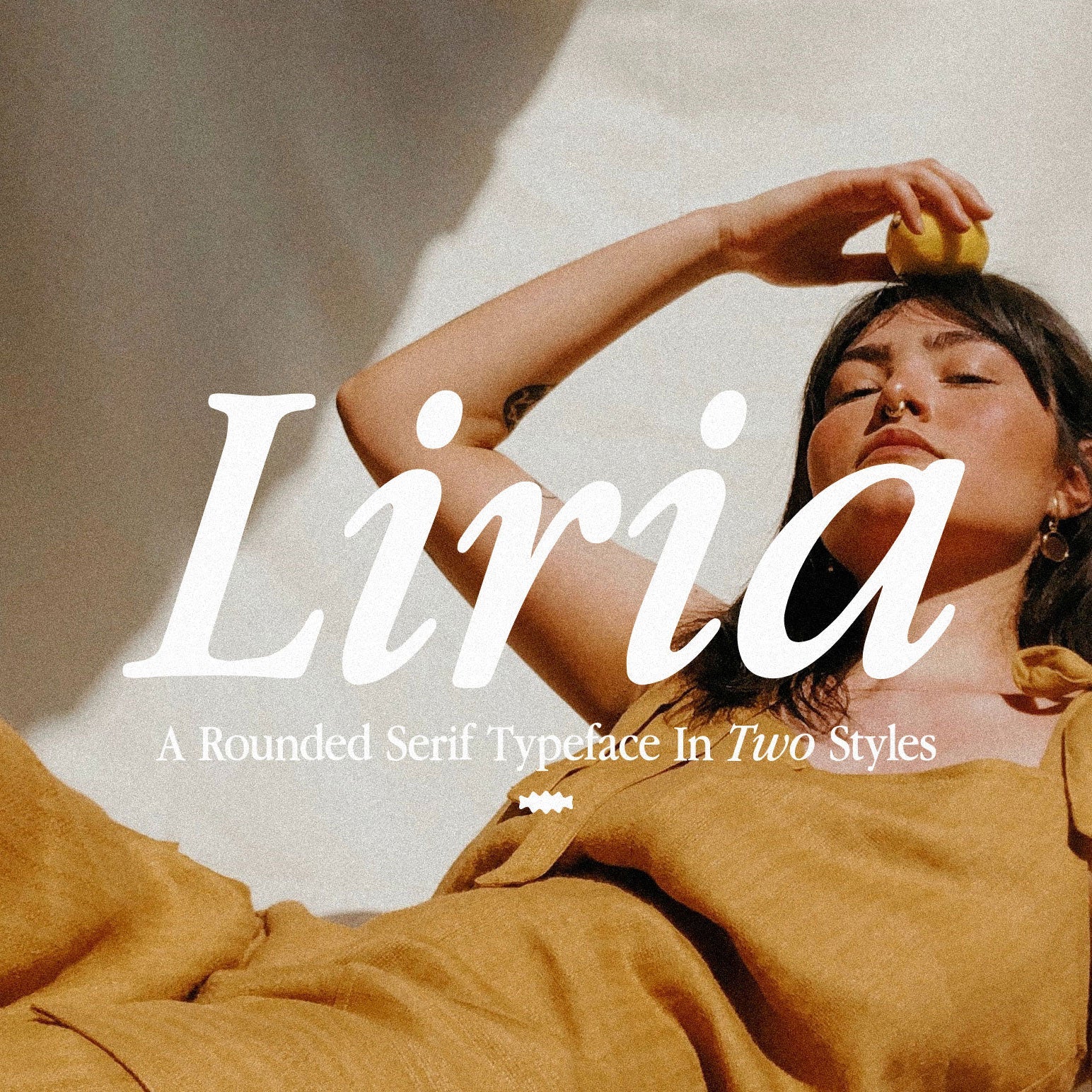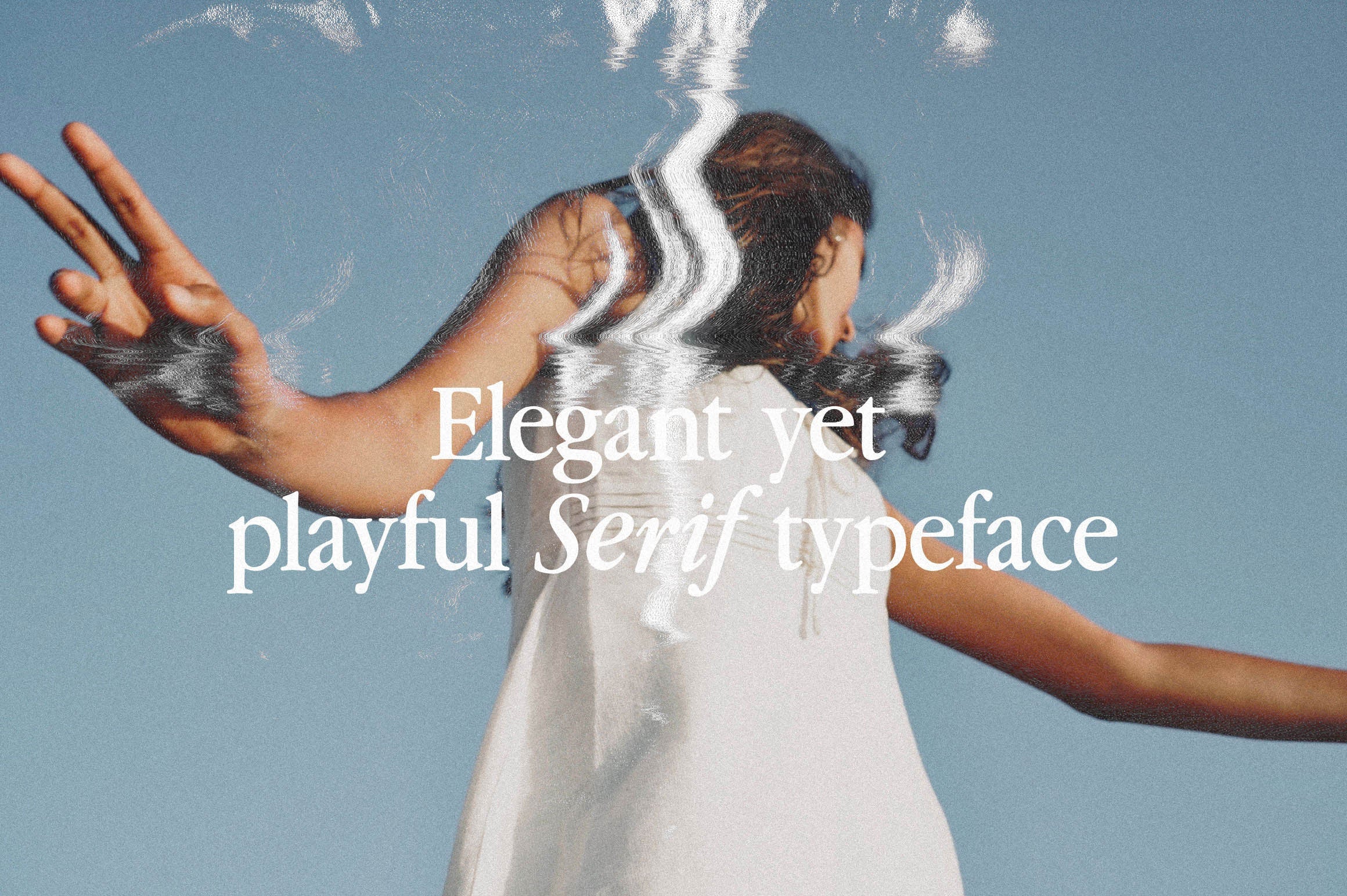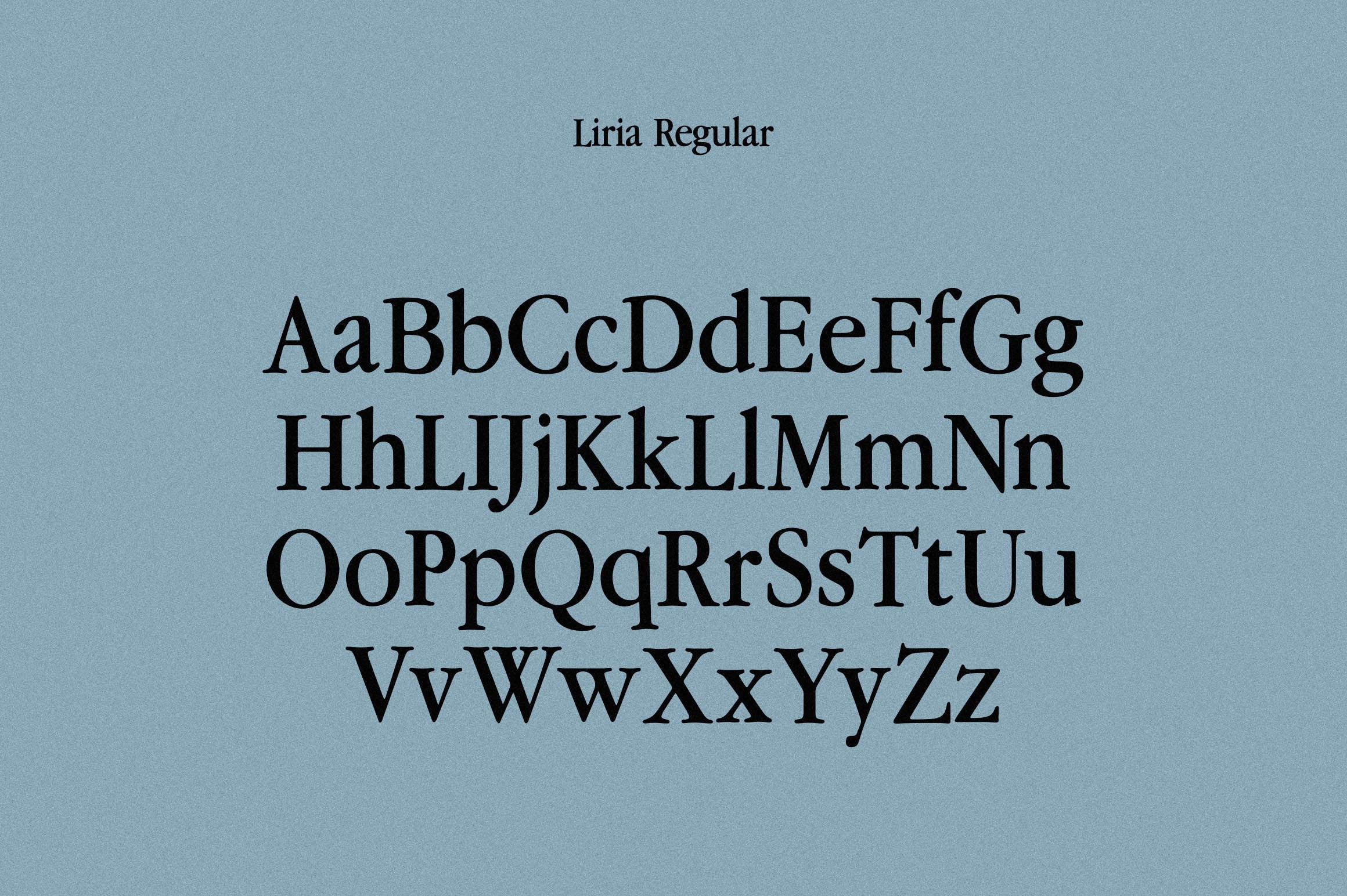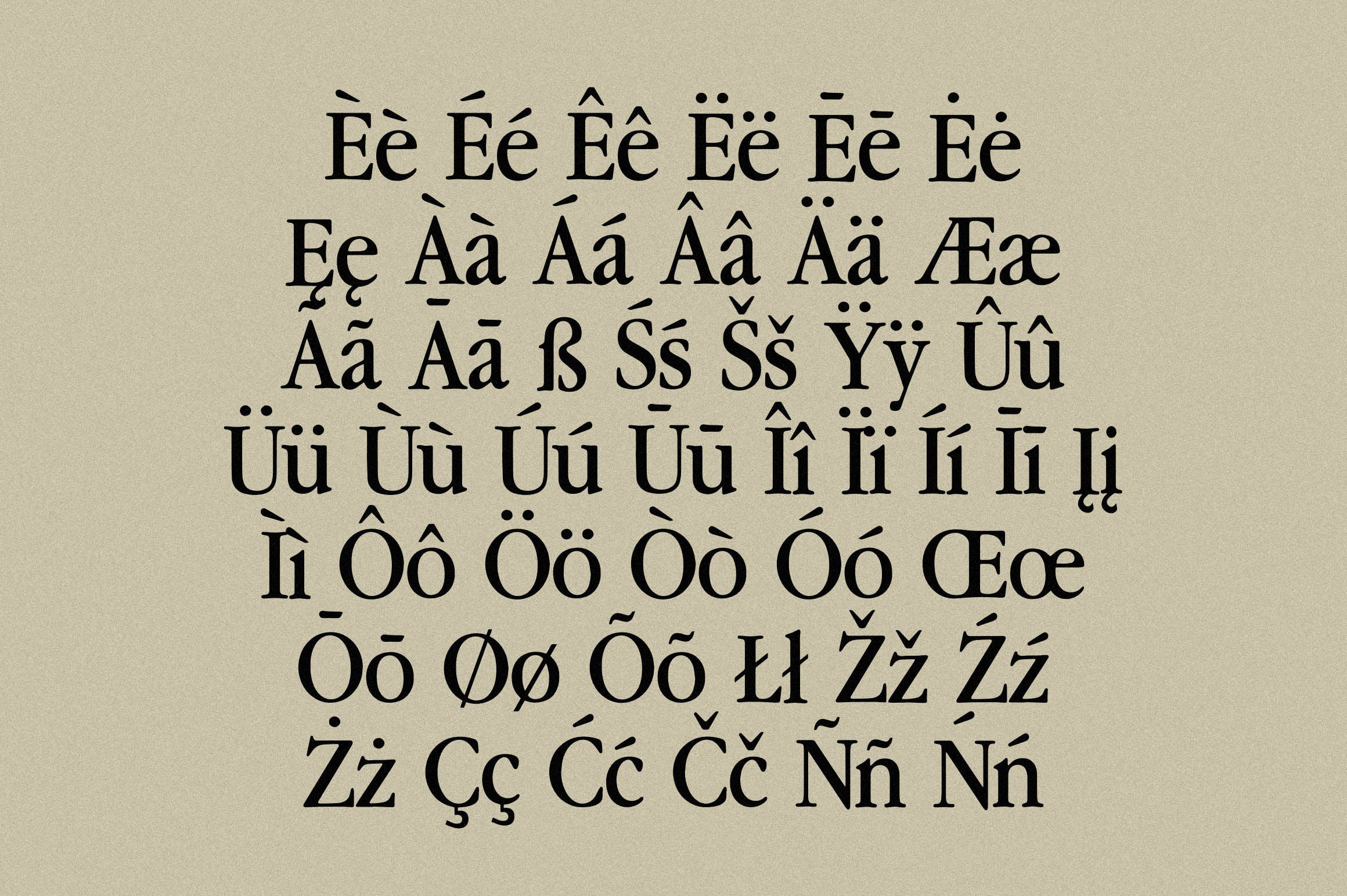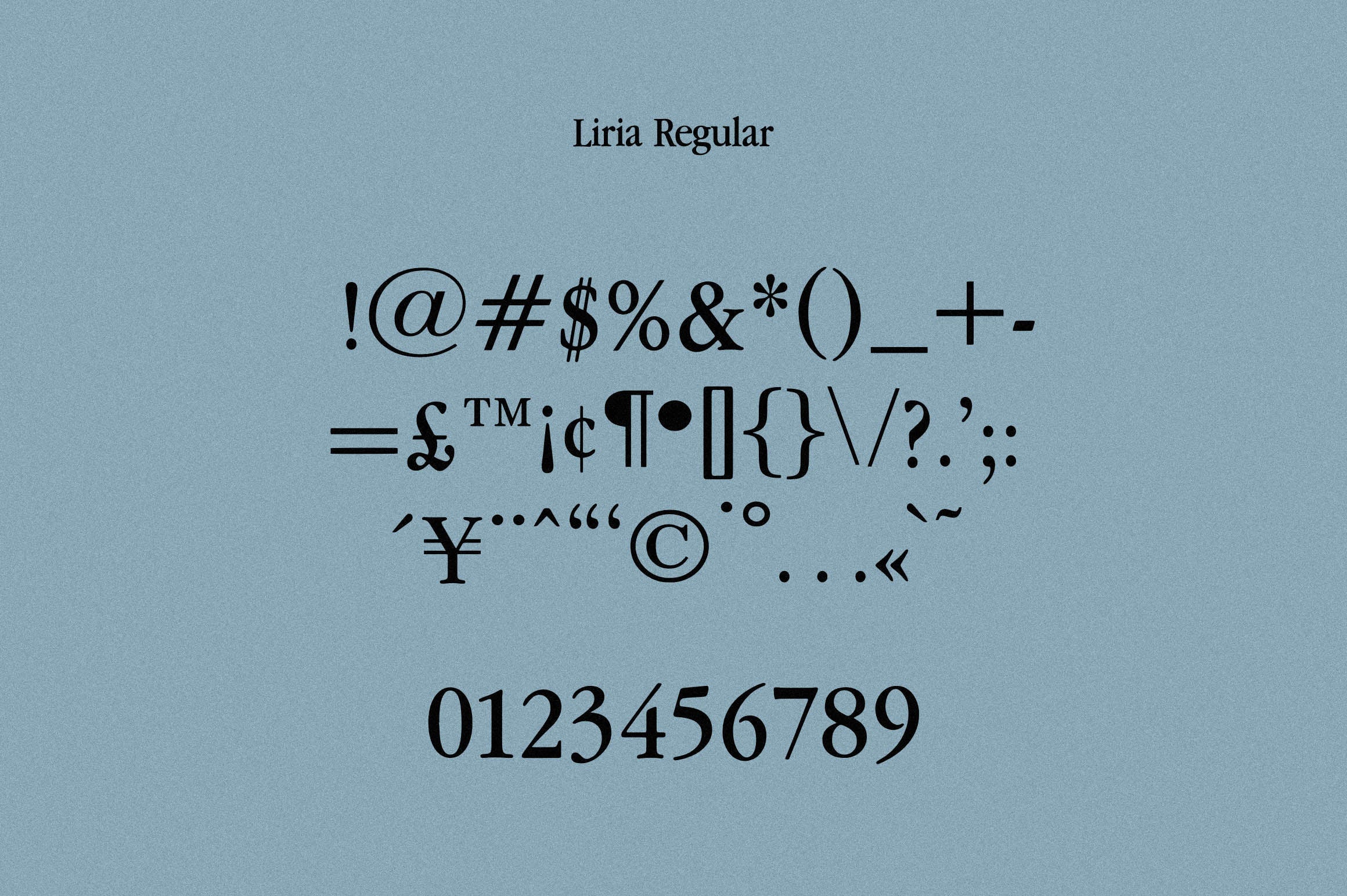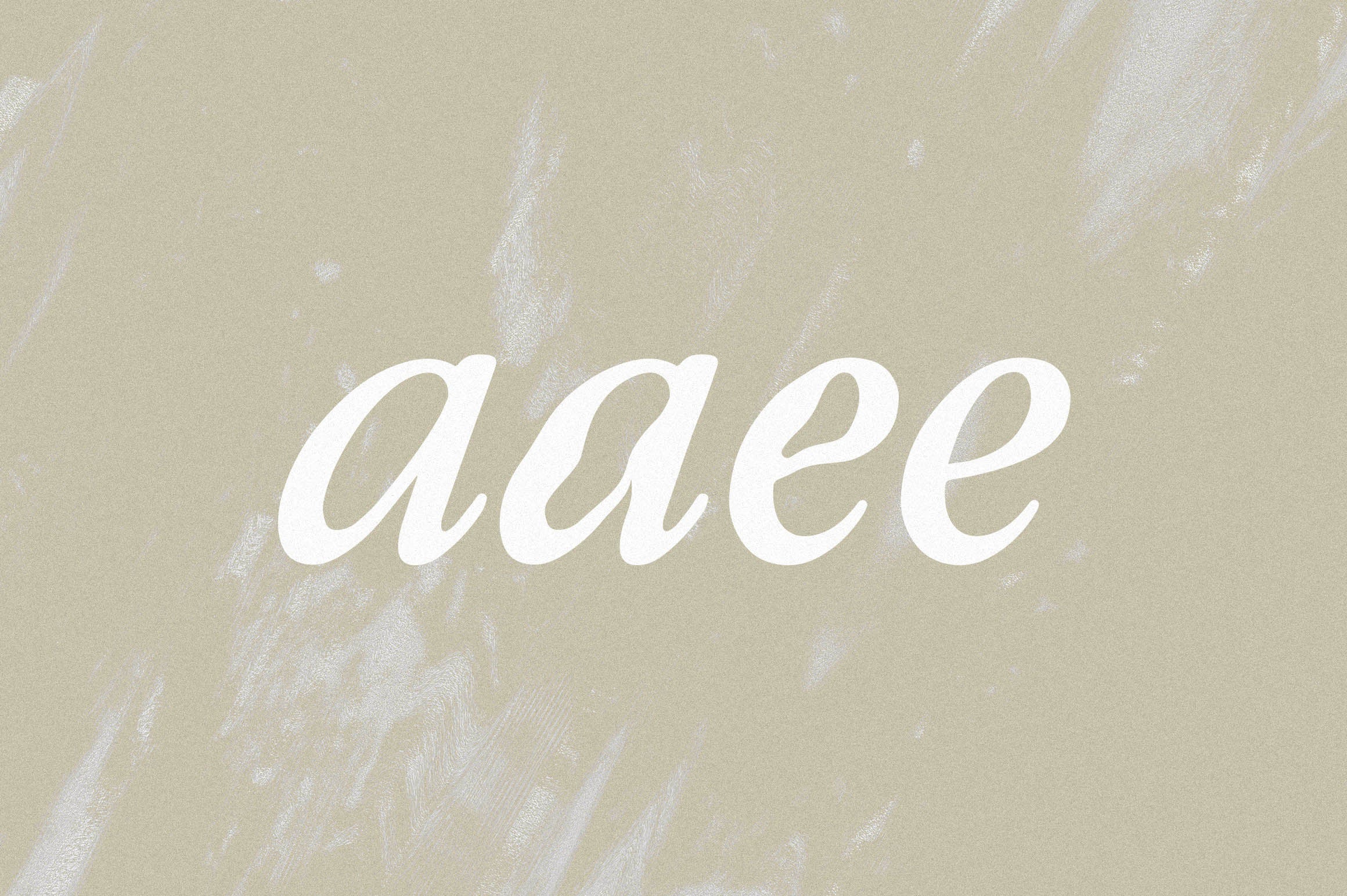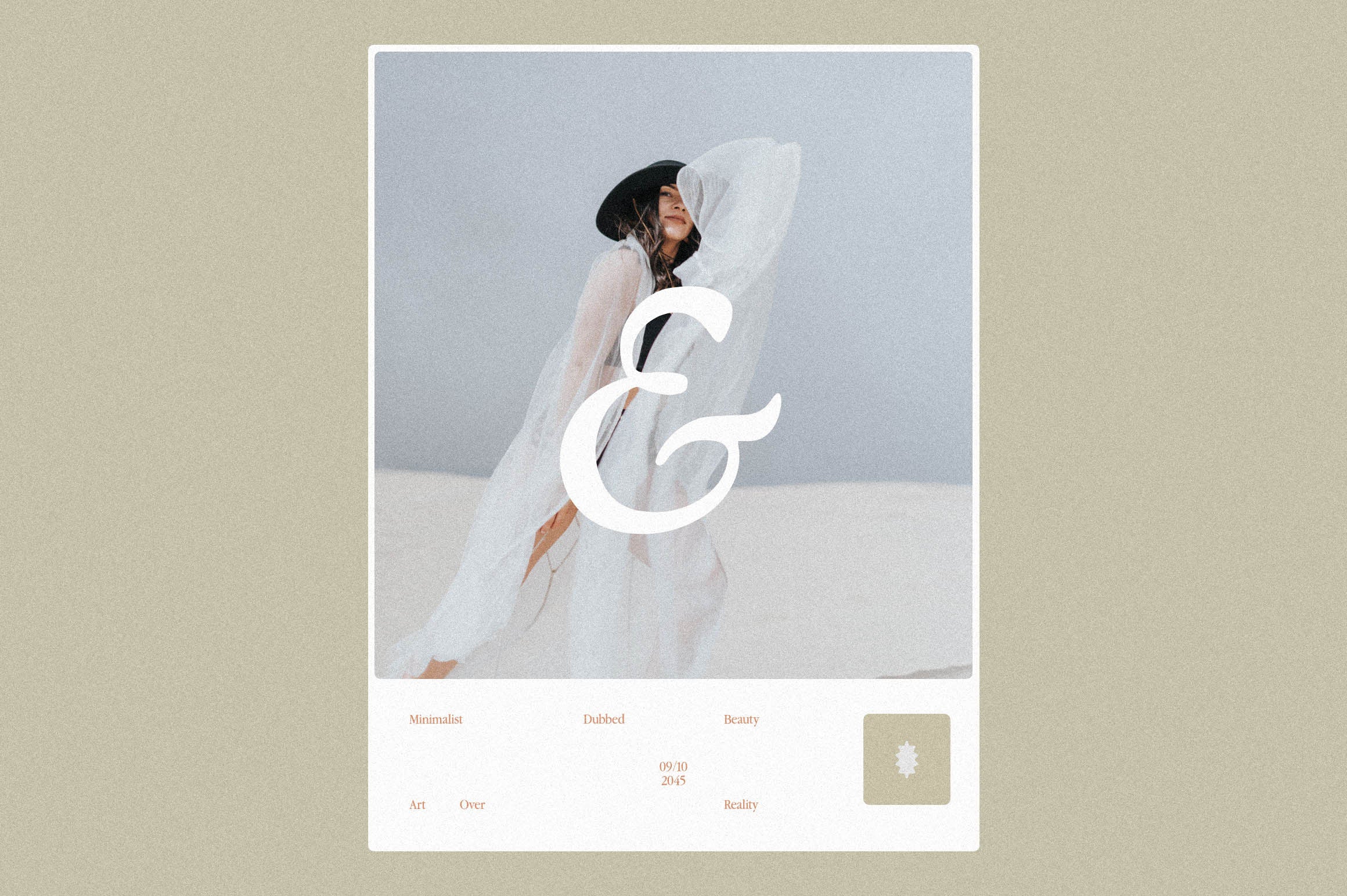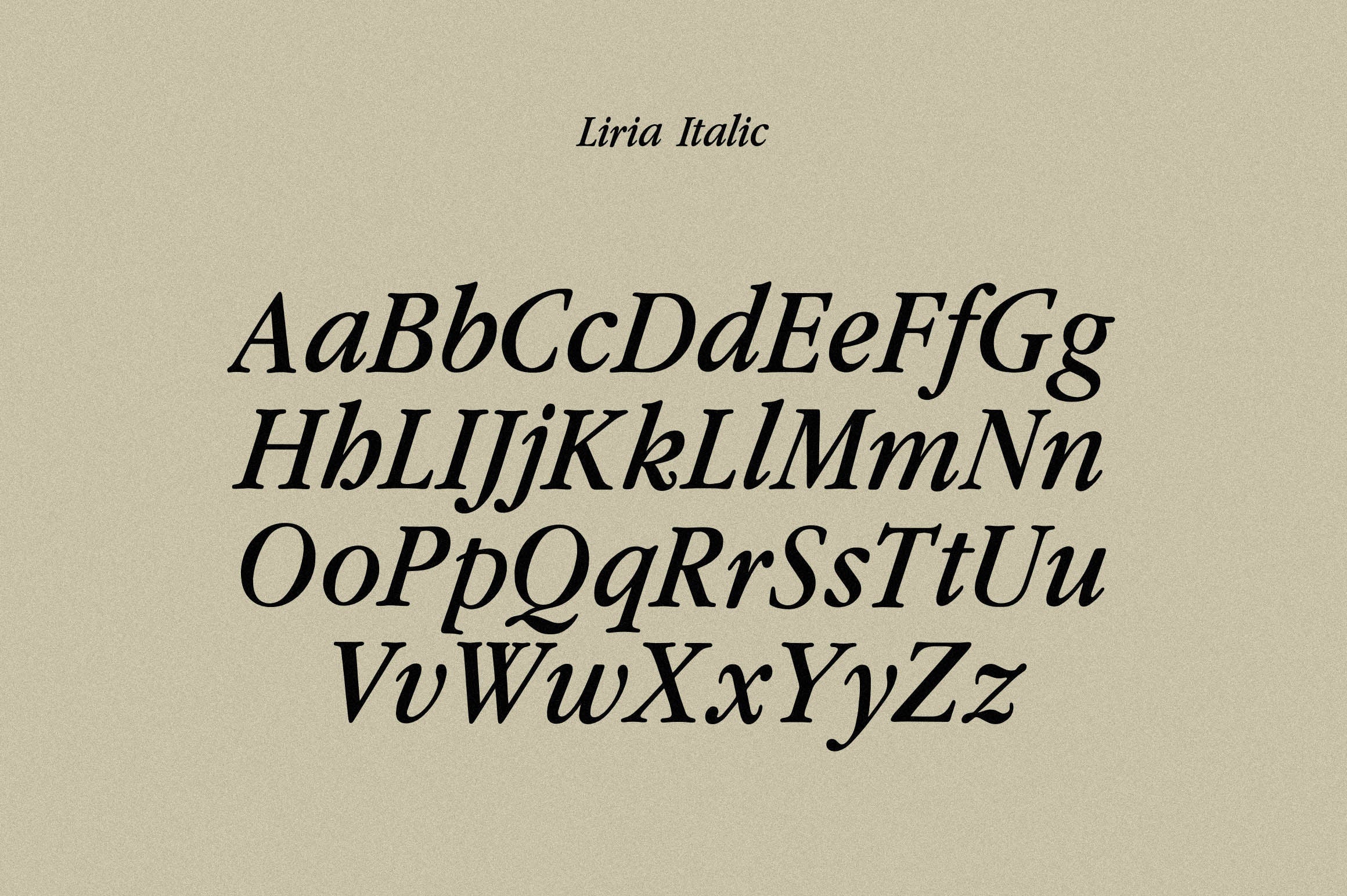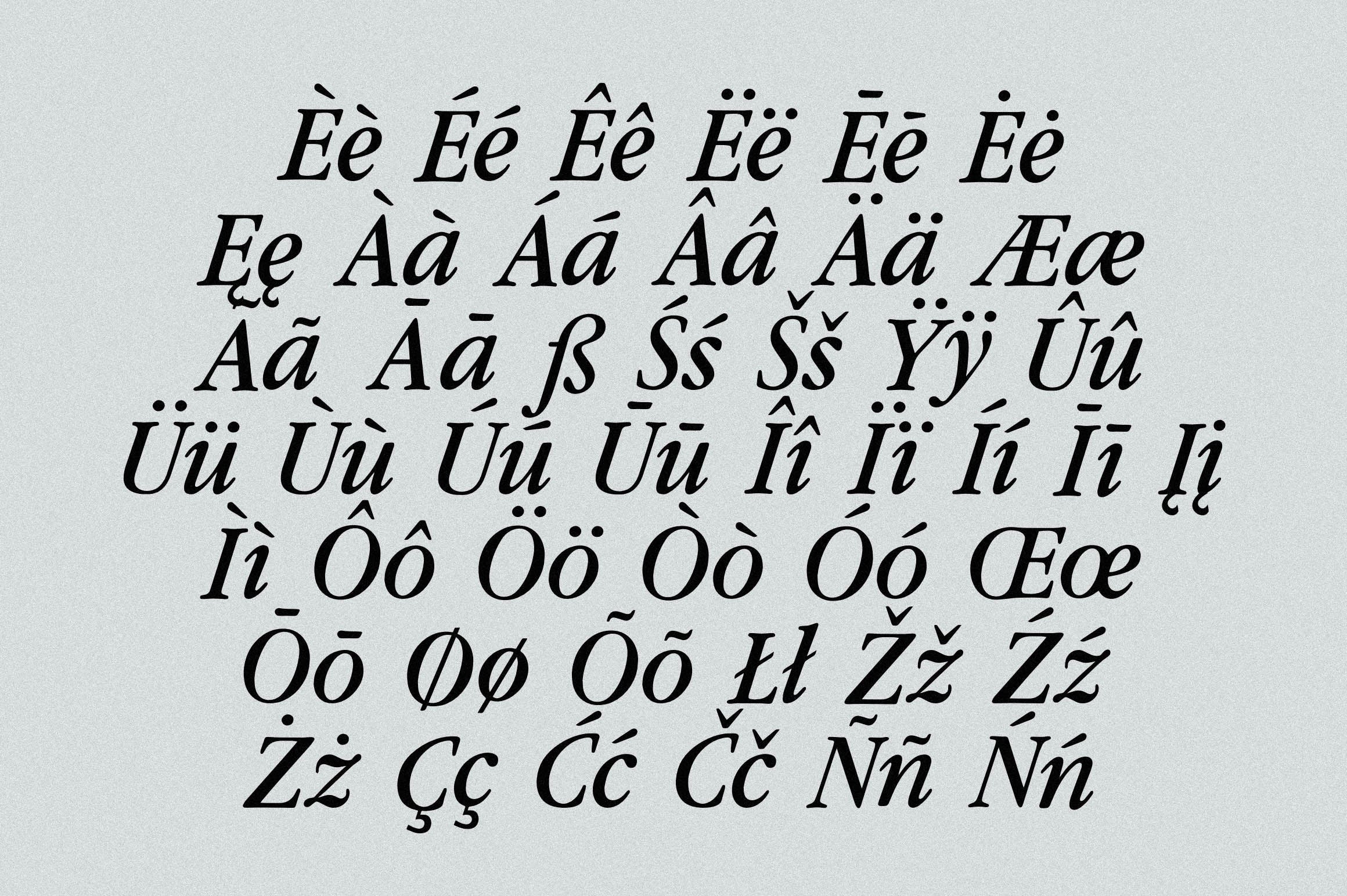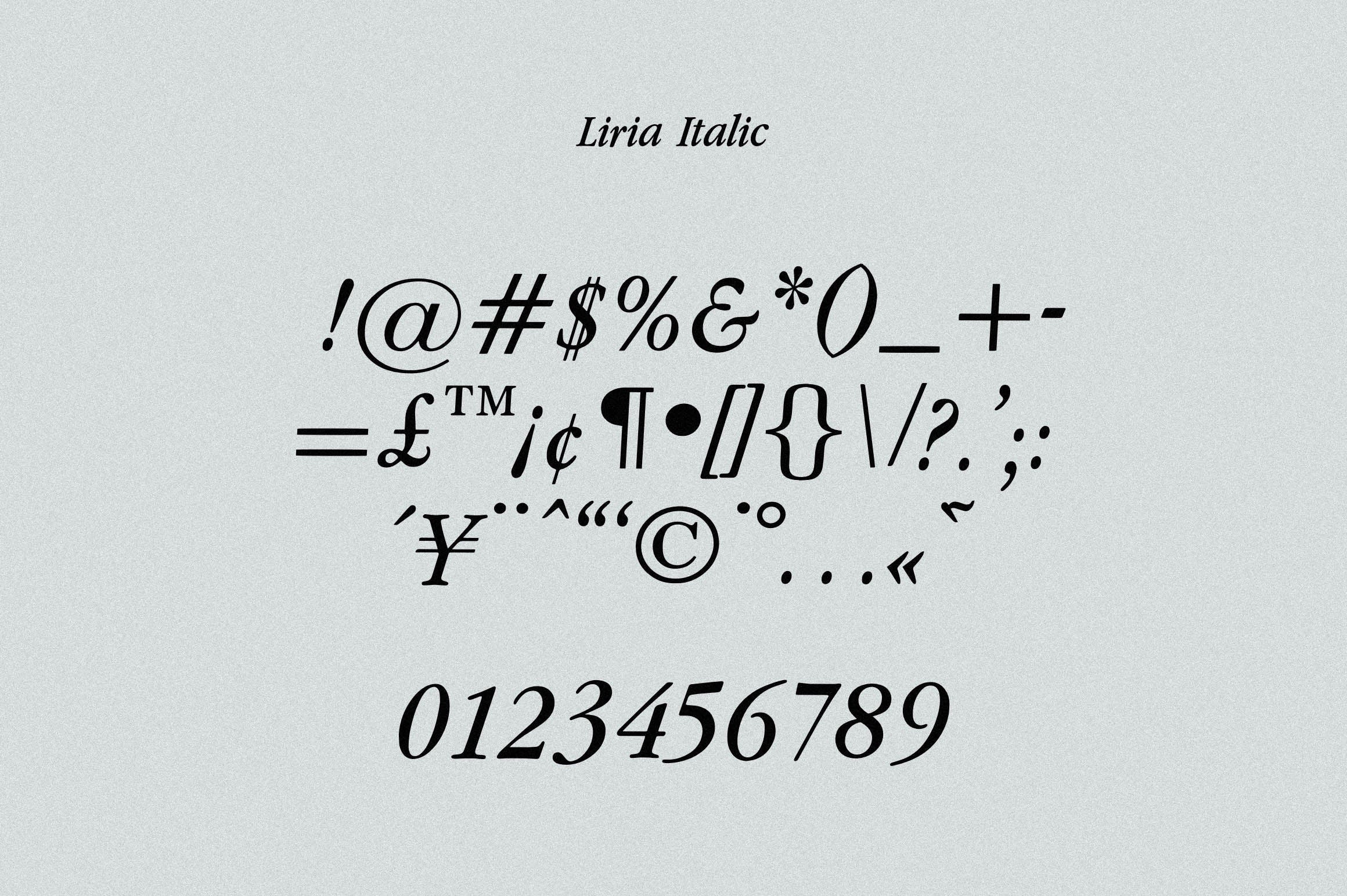
Liria Serif Typeface
Introducing Liria Serif Typeface
Perfect for large headlines or body text, for print or web based projects.
Have fun mixing Regular and Italic styles to add that 90s look to your designs.
The typeface includes:
• Liria Regular (uppercase & lowercase)
• Liria Italic (uppercase & lowercase)
• Numbers & punctuation
• Foreign language support
The Liria Serif Typeface is a vintage-inspired, elegant font available in both Regular and Italic styles. It includes uppercase and lowercase letters, numbers, punctuation, and supports foreign languages. The typeface is available in TTF and WOFF formats.